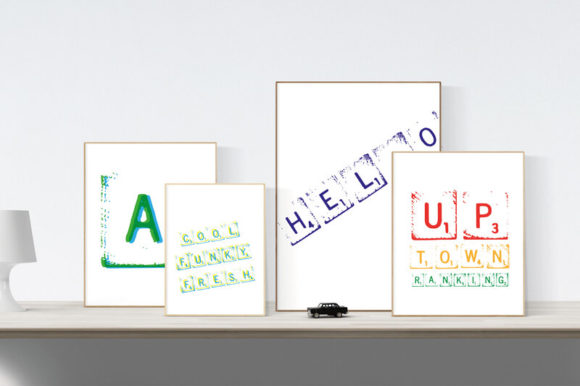
Lexiko Font: Playful Wood Type Font for DIY Crafts & Home Decor
About the Lexiko Font
Unleash your creativity with Lexiko Font, a versatile font perfect for a wide range of applications. Lexicon was the original name for the classic board game, ‘Scrabble’. So get the look with a set of wooden style A-Z roughed up looking letter blocks (complete with scoring numbers) and blank tiles for even higher scores! Make something with cool messages for the home, use for invites, great for prints, mugs and canvases. Let your imagine nation go wild with the a full alphabet set with a classic chic board game style font.
Lexiko’s playful, yet slightly rustic charm makes it ideal for headlines, short taglines, and branding elements where a touch of handcrafted authenticity is desired. It works exceptionally well on packaging, posters, and invitations, adding a vintage appeal. However, its less-than-optimal letter spacing makes it unsuitable for body text or longform content, and its irregular texture may prove problematic in UI applications requiring high readability.
Pairing Lexiko with a clean sans-serif like Montserrat or a more geometric font like Futura provides a strong contrast, balancing its informal energy. For a warmer feel, consider pairing it with a classic serif like Garamond or a script font like Allura, but use these pairings sparingly to avoid overwhelming the Lexiko’s unique character.
Its overall personality is best described as approachable and nostalgic, conveying a sense of friendly craftsmanship. Brands focusing on games, artisanal goods, or vintage-inspired products would find Lexiko a particularly effective choice.